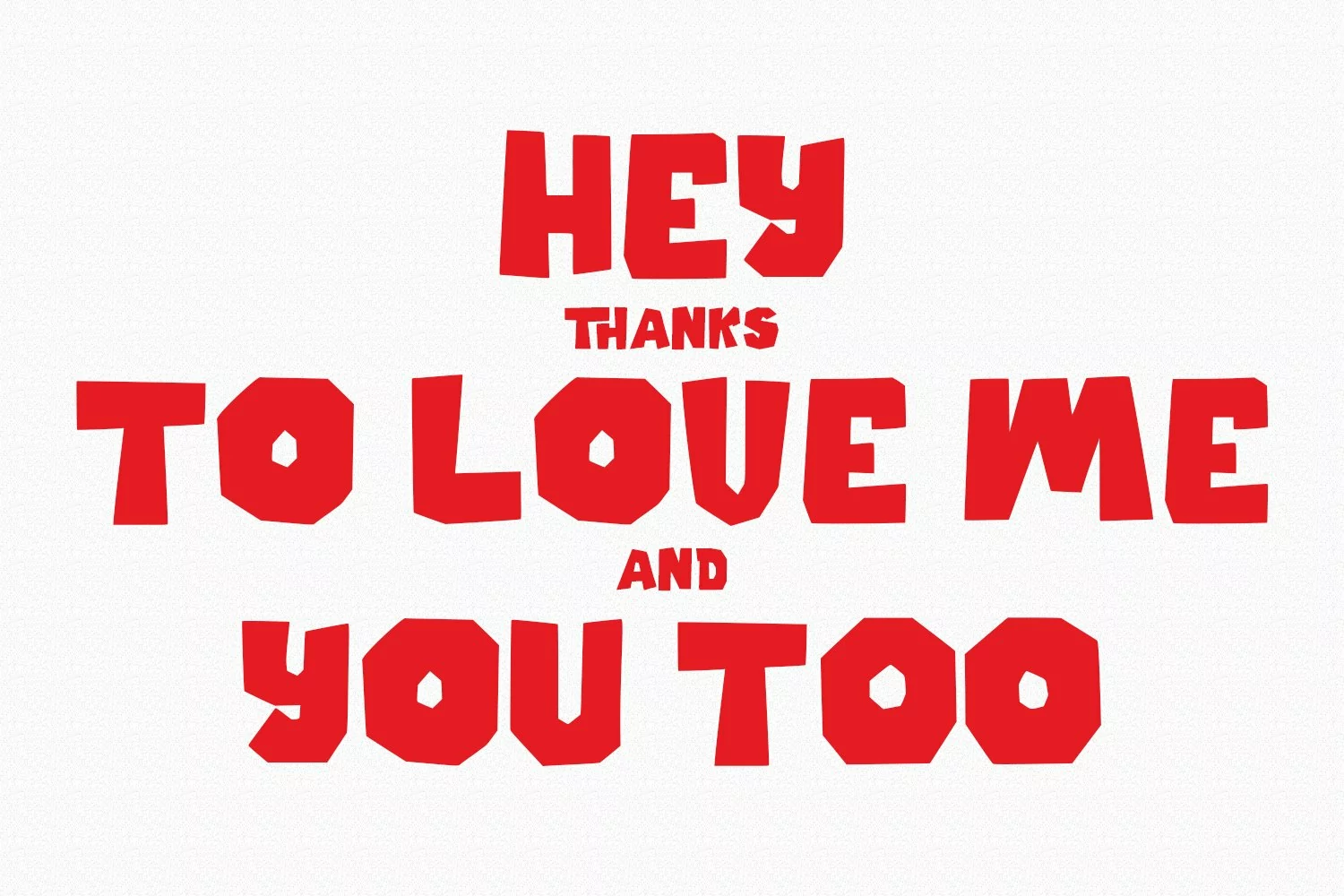
Goofy Wakle is a bold cartoon handwritten display font. With bold sharp stroke, fun character with a bit of ligatures. To give you an extra creative work. Goofy Wakle font support multilingual more than 100+ language. This font is good for logo design, Social media, Movie Titles, Books Titles, a short text even a long text letter and good for your secondary text font with sans or serif. Make a stunning work with Goofy Wakle font.